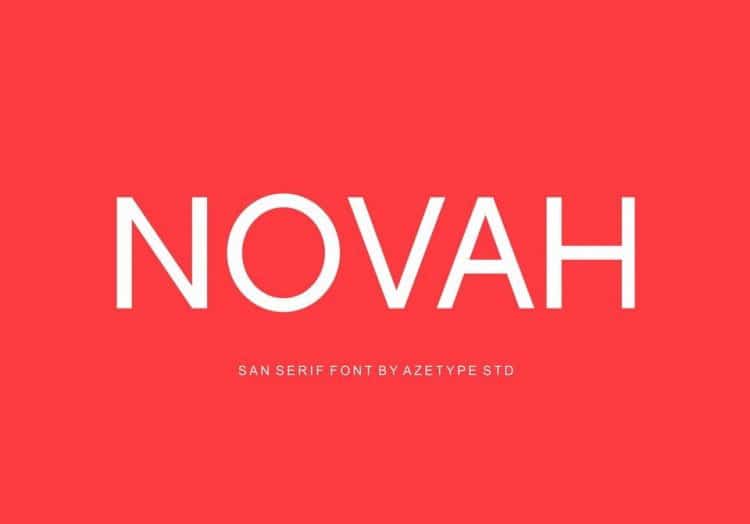
Novah Sans Free Font
Novah Sans Serif Free Font is a clean sans basic font! Use alone or together for a sharp combo. Perfect for logos and branding! Novah will be suitable for many creative projects.
This distinctive typeface that will be perfect for logos, packaging, greeting cards, presentations, headlines, lettering, posters, branding, quotes, titles, magazines, headings, web layouts, mobile applications, art quotes, advertising, invitations, packaging design, books, book title, and more.